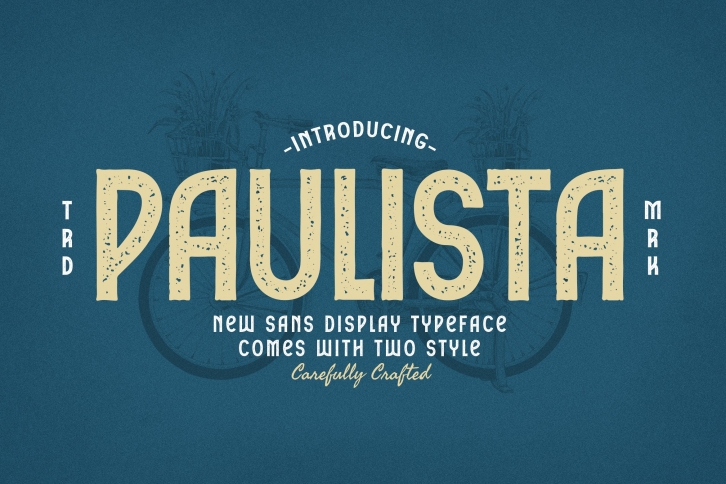
Introducing, Paulista an incredibly Unique and Interesting Display Font!!
Paulista is an incredibly Unique and Interesting Display Font for your Design that is absolutely great for your next creative project such as logos, printed quotes, invitations, cards, product packaging, headers, Logotype, Letterhead, Poster, Apparel Design, Label, and etc.
This Versatile Font includes also support a Multilingual Characters. Making this Font a Swiss Army knife in your Font Library. It's extremely fun to use as each word can be transformed to your liking.